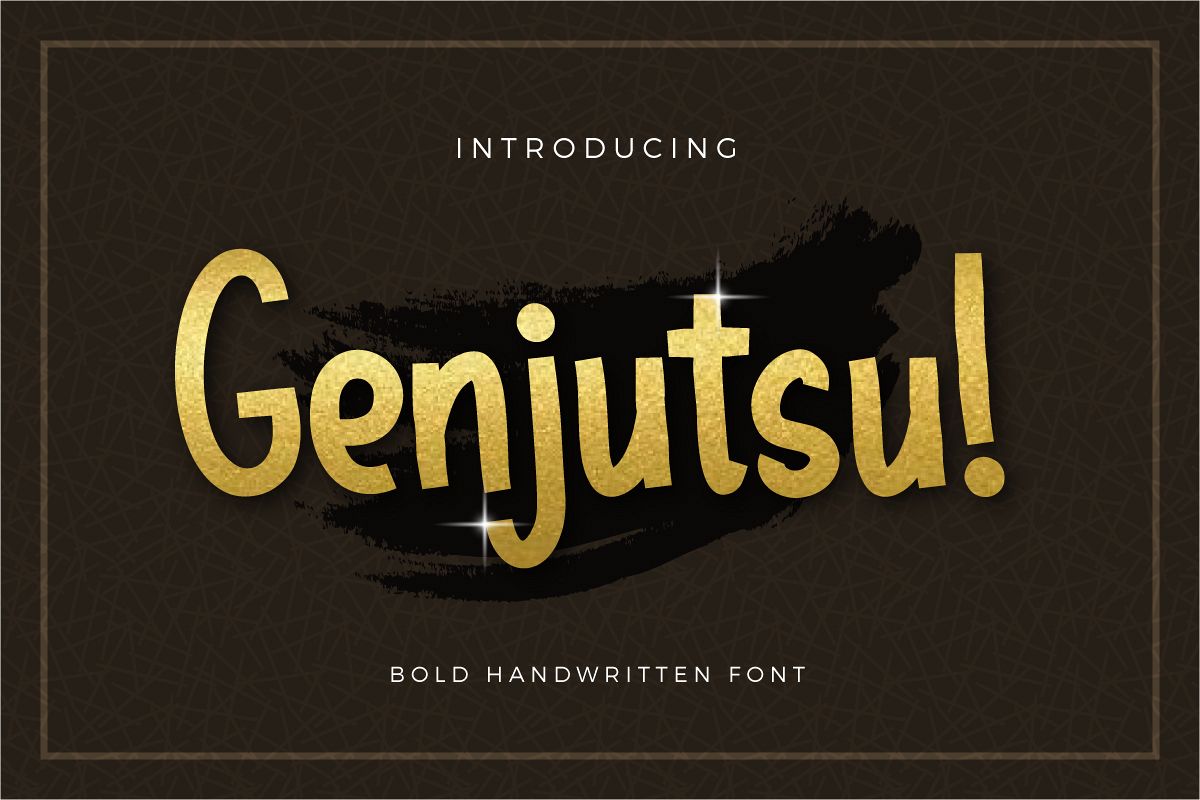
Genjutsu
Introducing Genjutsu Typeface - a handwritten font that is very fresh and unique style handmade. Genjutsu Typeface is perfectly suited to logo, tationery, poster, apparel, branding, wedding invitation, card, tagline, layout design, and much more !!Files included: